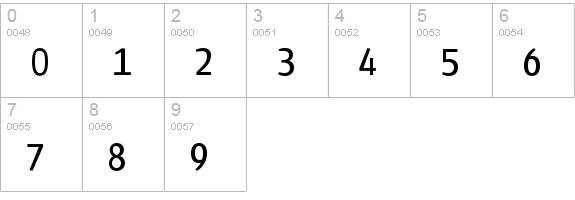
TabardEF-Medium is a balanced, medium-weight variant in the TabardEF typeface family \xE2\x80\x94 well suited to sub-headlines, navigation, and balanced editorial work.
Introducing TabardEF-Medium, a sophisticated and versatile font that effortlessly combines elegance with functionality. This stunning typeface is perfect for a wide range of design projects, from editorial layouts to branding materials and everything in between. TabardEF-Medium boasts a balanced and harmonious letterform, carefully crafted to provide a pleasant reading experience. Its moderate weight strikes the ideal balance between legibility and character, making it suitable for both body text and headlines. The timeless appeal of this font ensures that it will remain an enduring choice for designers seeking a classic and refined aesthetic. One of the most remarkable features of TabardEF-Medium is its versatility. Its clean and crisp lines make it incredibly adaptable to various design styles and themes, allowing it to seamlessly integrate into any project. Whether you're working on a modern minimalist design or a vintage-inspired layout, TabardEF-Medium is sure to elevate your work to new heights. And the best part? TabardEF-Medium is freely available to download at FontsMarket.com. This means that you can enjoy the benefits of this exceptional font without any cost. Simply visit FontsMarket.com, find TabardEF-Medium, and start enhancing your design projects with its timeless beauty. Don't miss the opportunity to add TabardEF-Medium to your font collection. It's a must-have for any designer looking to bring sophistication and versatility to their work. Download it today and experience the limitless possibilities that this remarkable font offers.